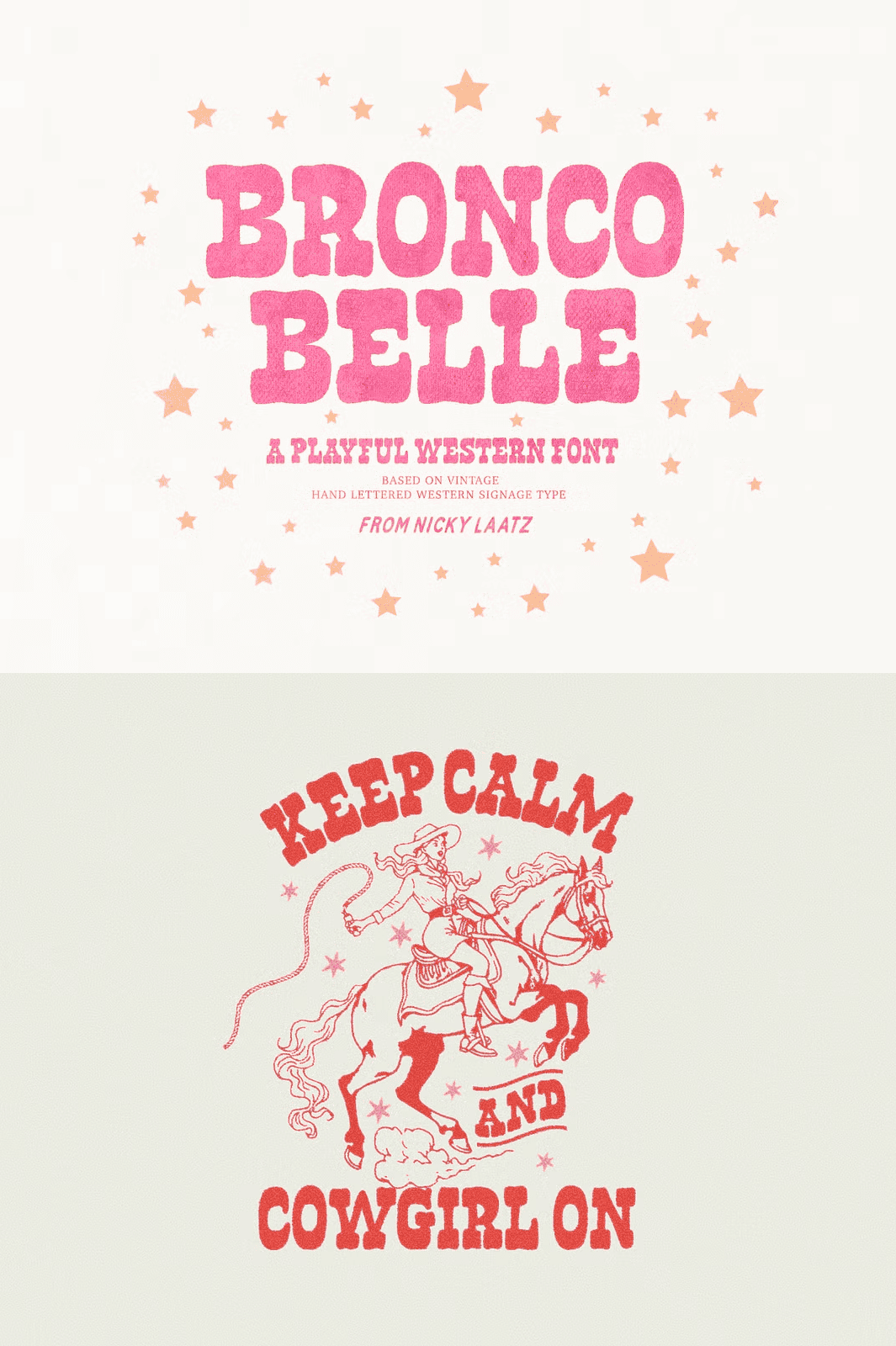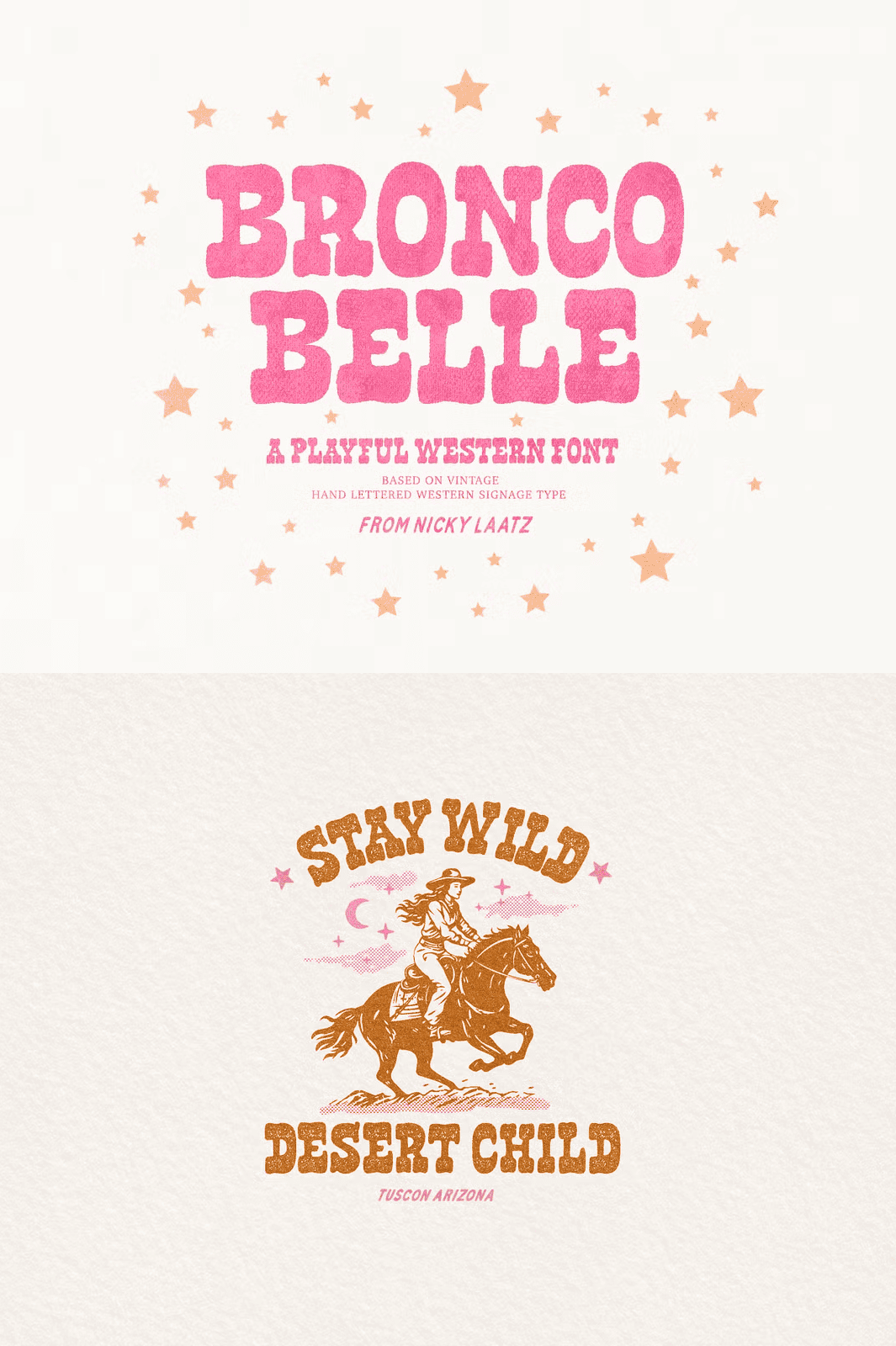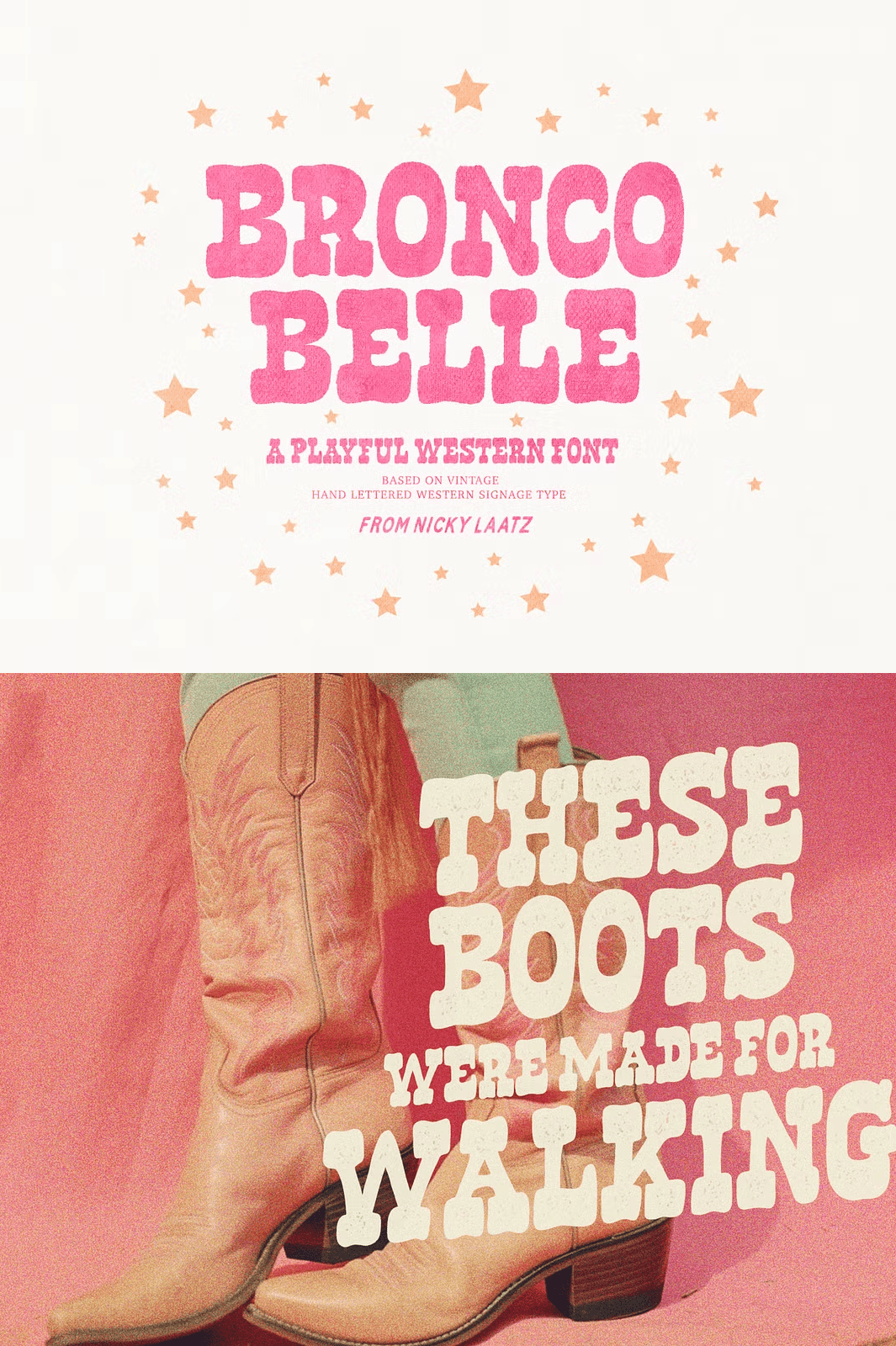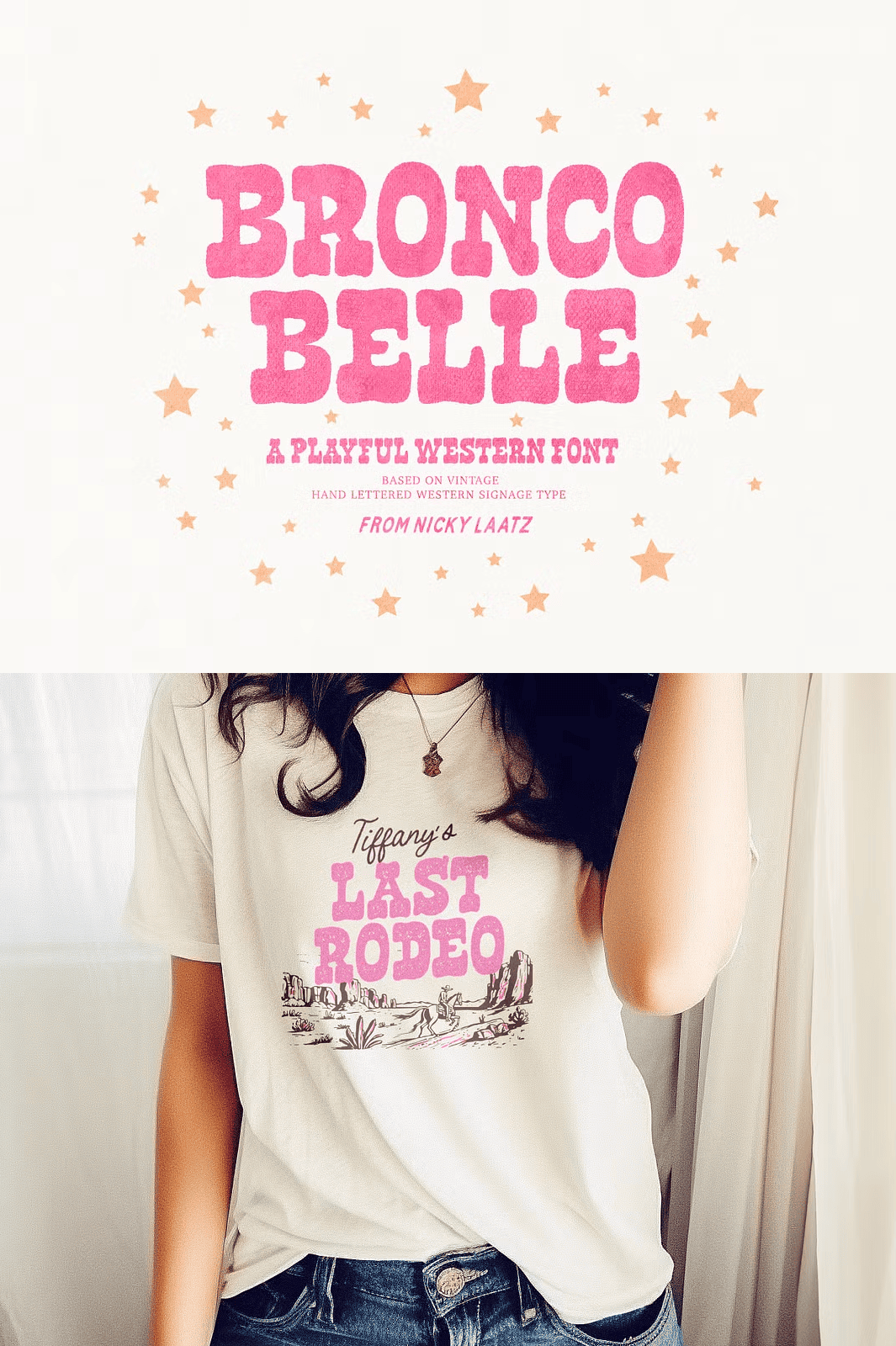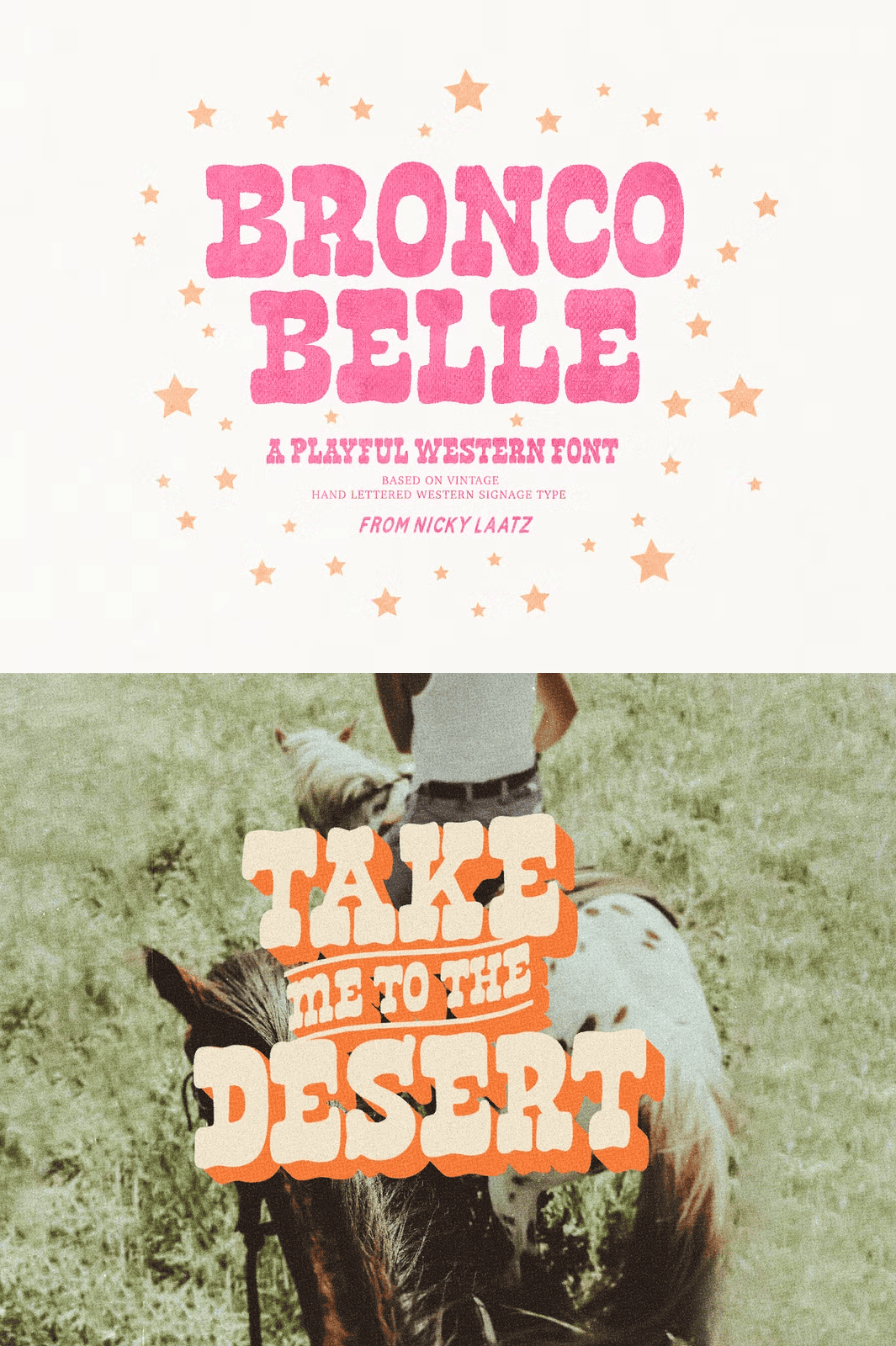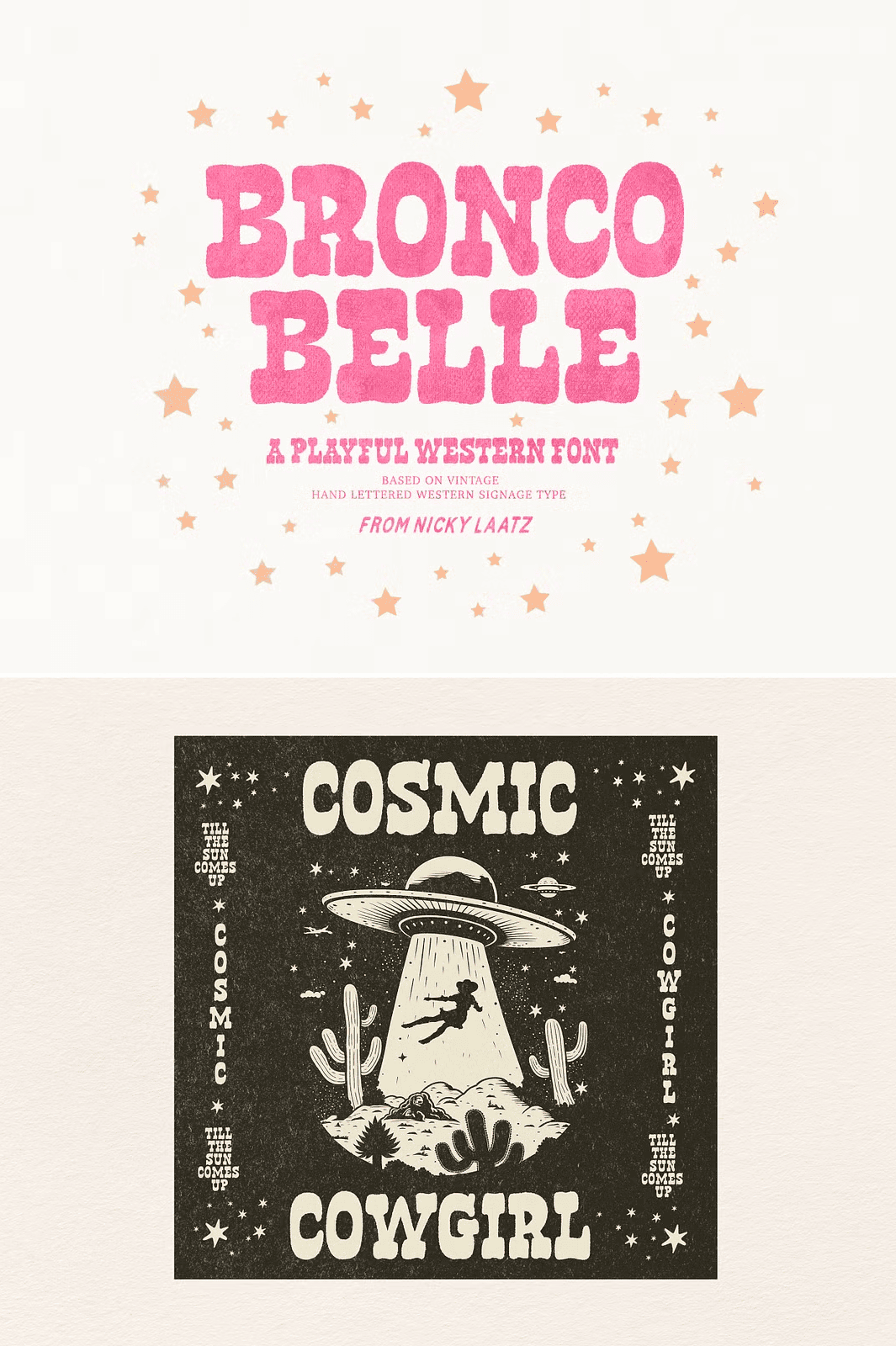
Bronco Belle Typeface
Unleash Rustic Charm with 4 Dynamic Variants
Step into a world of dusty trails, saloons, and frontier flair with Bronco Belle — a bold, playful, and unapologetically rugged typeface designed to bring authentic western spirit to your designs. Whether you’re crafting a logo, branding a craft brewery, designing a concert poster, or building a themed product line, Bronco Belle delivers raw charm with every letter.
Available in two widths — Regular and Wide — and powered by four distinct stylistic variants, this typeface gives you complete creative control:
• Regular: The clean, smooth-edged original — perfect for classic, polished branding with a vintage soul.
• Rough-edged: Add gritty texture for an ink-bleed effect on rustic paper. Ideal for handmade, organic, and distressed designs.
• Grungy: Emulate a stamped, worn-in ink look with a textured, weathered feel. Instantly adds character to packaging and posters.
• Rough Grunge: The ultimate fusion — combine the grainy edge with a heavy grunge overlay for maximum vintage impact.
Each variant is meticulously crafted to preserve the rugged, hand-rolled identity of the original, while offering unique ways to express different levels of decay, energy, and personality.
Designed for Creatives Who Demand Personality in Every Line
Bronco Belle isn’t just a font — it’s a storytelling tool. Its exaggerated strokes, playful spacing, and bold presence make it a natural fit for projects that thrive on attitude and narrative. From cowboys to rockabilly bands, western festivals to craft cocktails, this font brings authenticity and fun to every pixel.
Whether you’re creating a logo that whispers “old west” or a poster that shouts “yeehaw!”, Bronco Belle delivers with bold confidence and vintage soul.
Perfect for High-Impact, Themed Design Projects
Choose Bronco Belle when your project needs:
• Brand Identity & Logo Design — Build a memorable brand with a strong personality. Let Bronco Belle be the face of your company’s bold, fun, and fearless spirit.
• Packaging & Merchandise — Elevate beer cans, t-shirts, coffee mugs, and stickers with vintage charm that sells on character.
• Event Posters & Invitations — From rodeos to music festivals, make your invitations impossible to ignore.
• Themed Campaigns & Social Media Graphics — Dominate platforms with bold visuals that grab attention and spark interaction.
• Blog Headers & Web Elements — Add personality to your website with striking headlines and callouts.
This typeface doesn’t blend in — it takes center stage. Just like a real cowboy on a dusty street, it demands respect and admiration.